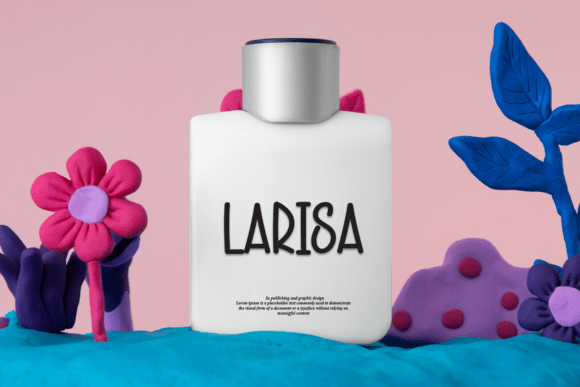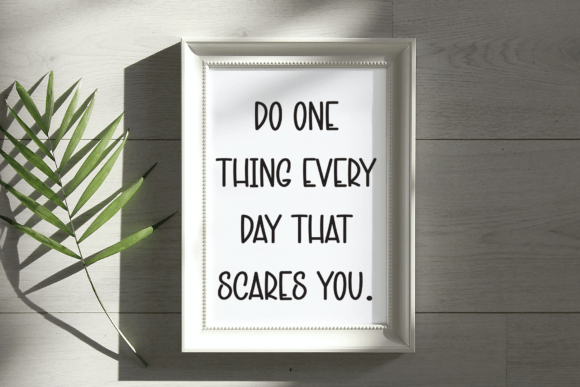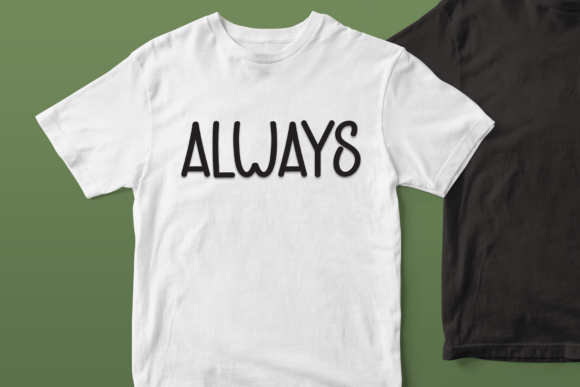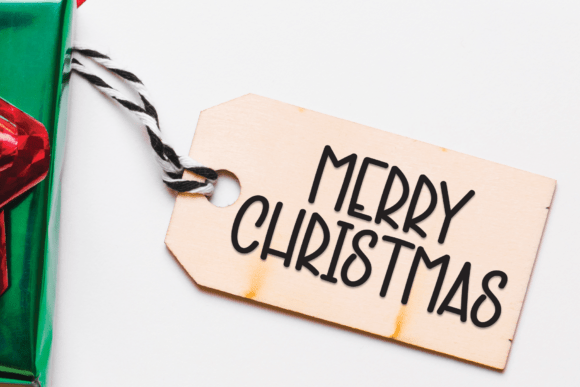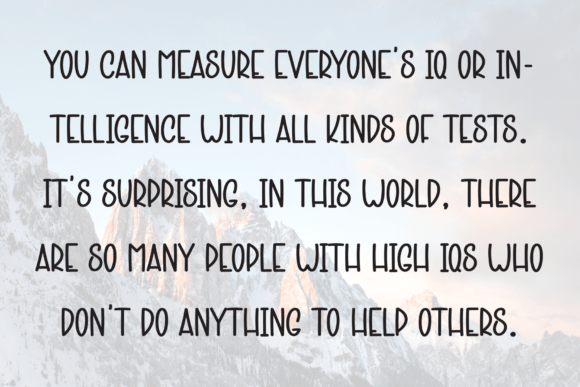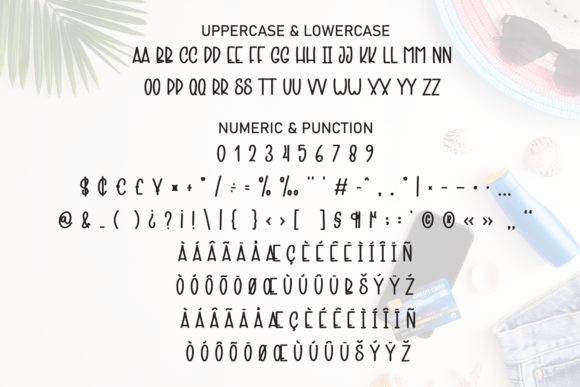
Have you ever found yourself staring at a blank canvas, struggling to bring your creative vision to life? For designers, this moment can be both exhilarating and daunting. But what if you had the perfect tool to give your projects that extra oomph? Enter the Holiday Minimalist Font, a game-changing display font that’s about to revolutionize the way you approach design.
This gorgeous font combines modern simplicity with a playful, approachable vibe, making it the perfect addition to any project. From posters to branding, packaging to social media graphics, the Holiday Minimalist Font adds a fresh and friendly touch that’s impossible to ignore. With its versatile character and eye-catching appeal, this font delivers both readability and personality, making it a valuable asset for any designer looking to elevate their work.
Holiday Minimalist Font Key Features
- Font Family: Holiday Minimalist, a unique and modern sans-serif font designed for festive occasions.
- Unique Characteristics: Features a distinctive, hand-drawn aesthetic with subtle texture and ornamentation, adding a touch of elegance and sophistication to any design.
Designer Review: Holiday Minimalist Font
Overall, I think the Holiday Minimalist Font is a great addition to any design project that requires a touch of festive flair without being too overbearing. ✨ Here are some of the things that work well:
- Understated elegance: The font’s minimalist design ensures that it doesn’t overpower the content it’s paired with.
- Flexibility: The font works well in both digital and print media, making it a versatile choice for designers.
- Festive feel: The subtle holiday vibes make it perfect for seasonal projects or promotions.
- Lack of character set: The font may not include all the special characters or symbols that designers might need for certain projects.
- No bold/italic options: While the font’s minimalist design is a strength, it may not be suitable for projects that require emphasis through font weight or style.
- May not be readable at very small sizes: As with any font, there may be readability issues when using the Holiday Minimalist Font at very small sizes.
Overall, I think the Holiday Minimalist Font is a solid choice for designers who want to add a touch of festivity to their projects without going over the top. Just be sure to test it thoroughly and consider the limitations before committing to it.
Use Holiday Minimalist Font for:
– Holiday greeting cards and invitations
– Brochures and flyers
– Web design and branding
Alternatives to Holiday Minimalist Font
Montserrat is a sans-serif font designed for digital use. It’s clean, modern, and highly legible, making it perfect for digital interfaces and branding materials. When to use: digital design, web development, and modern branding.
Montserrat is more geometric and modern compared to Holiday Minimalist Font, which has a more organic feel. Montserrat is ideal for projects that require a clean and professional look, while Holiday Minimalist Font is better suited for more creative and artistic projects.
Playfair Display is a luxurious and elegant serif font, perfect for high-end branding and typography projects. It features intricate details and a classic feel, making it ideal for luxury goods, fashion, and fine art projects. When to use: luxury branding, high-end typography, and classic design.